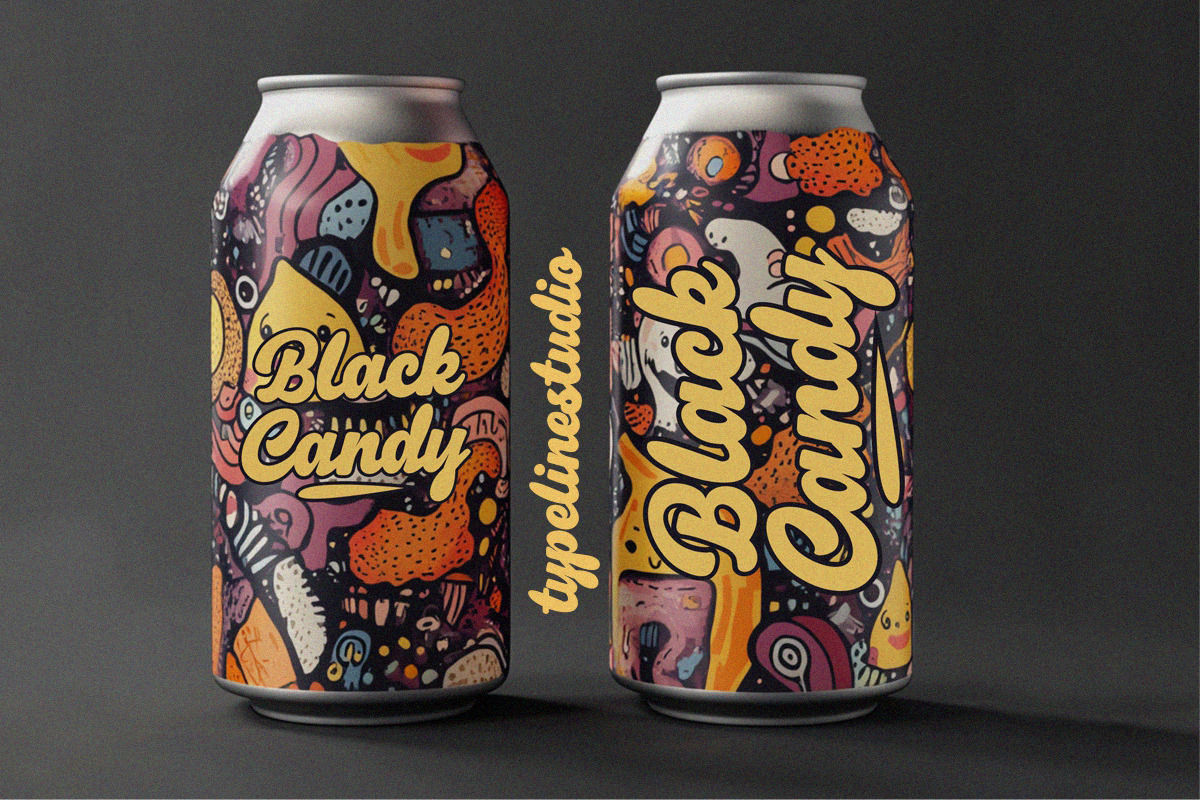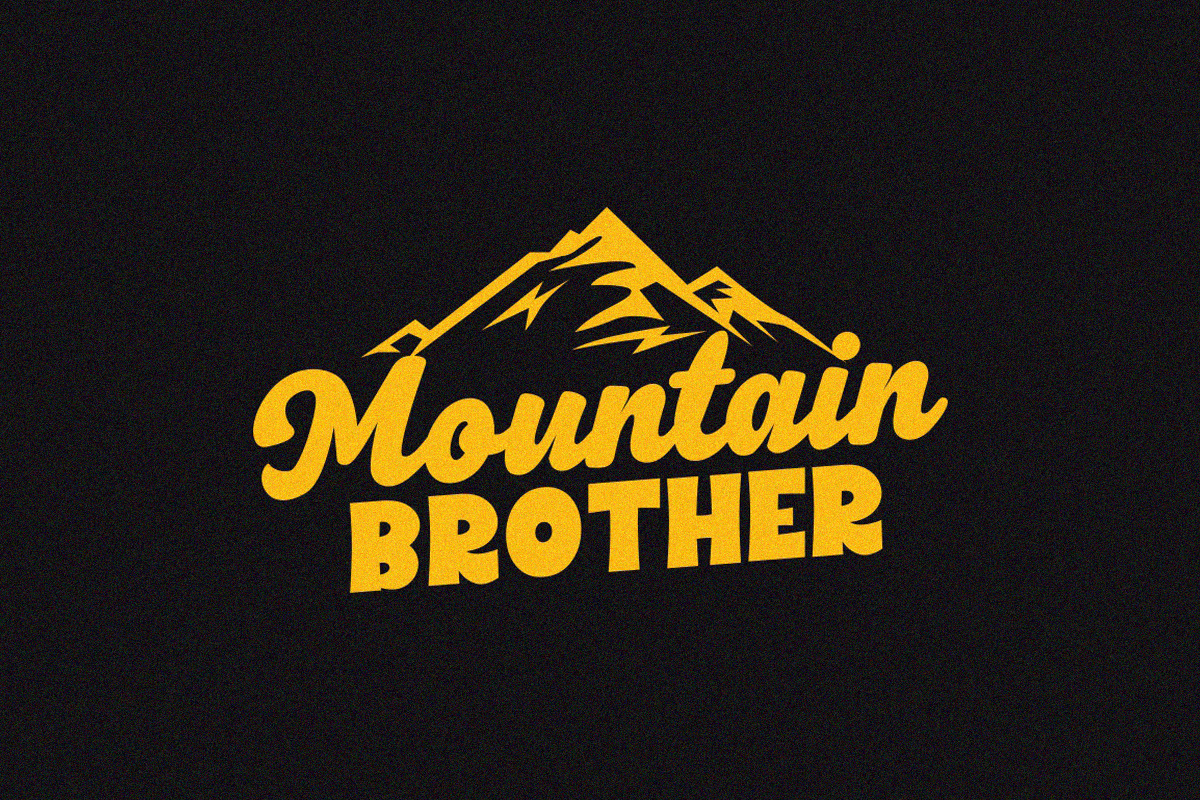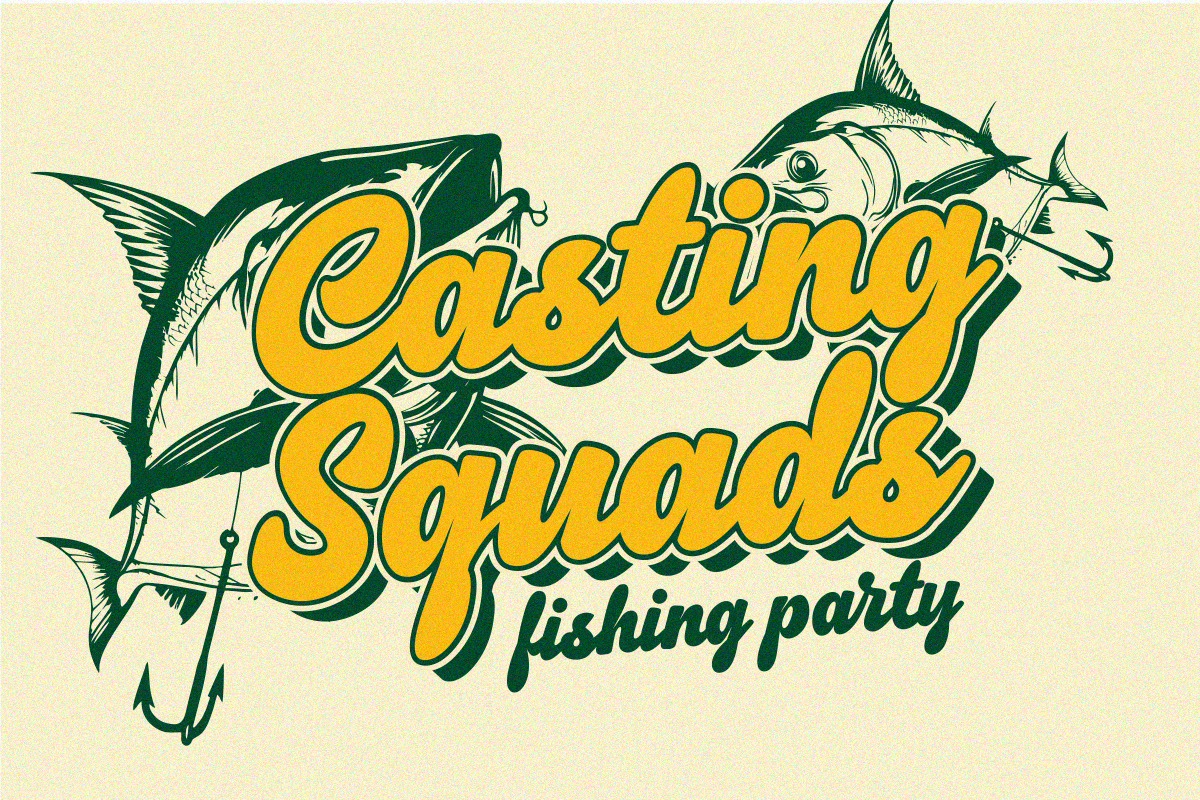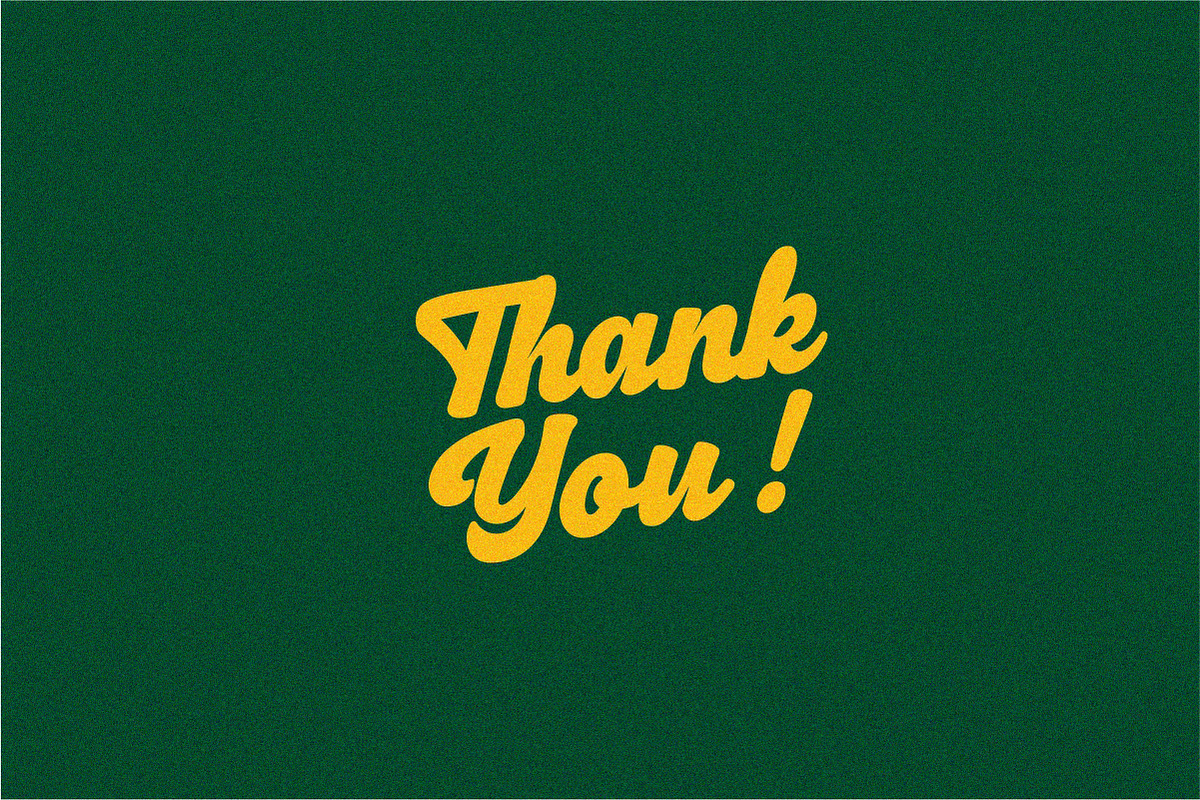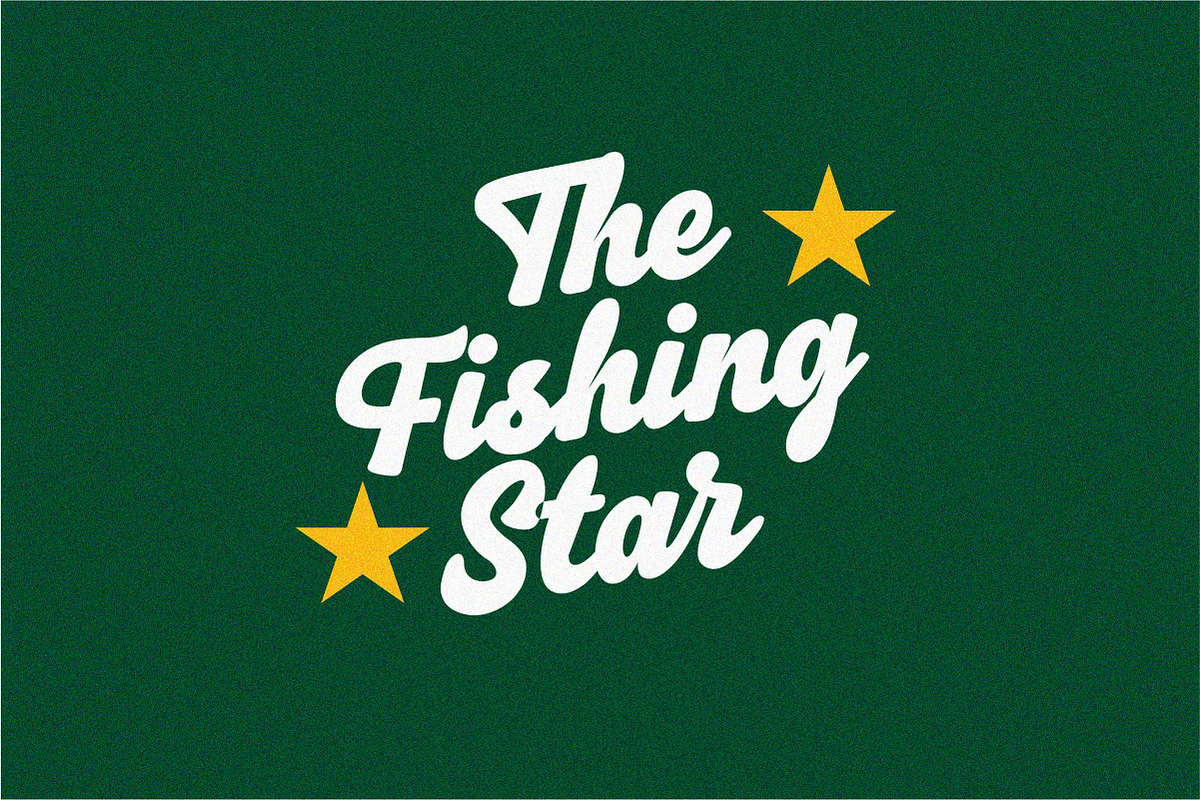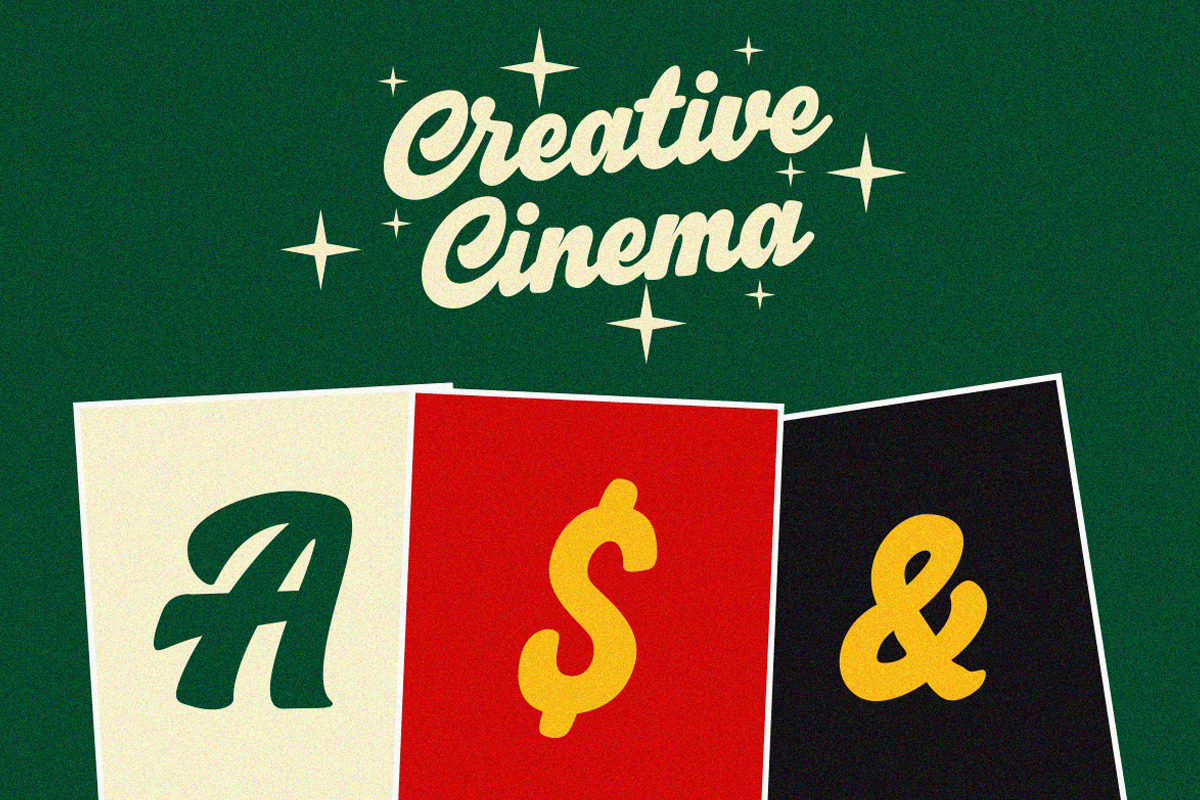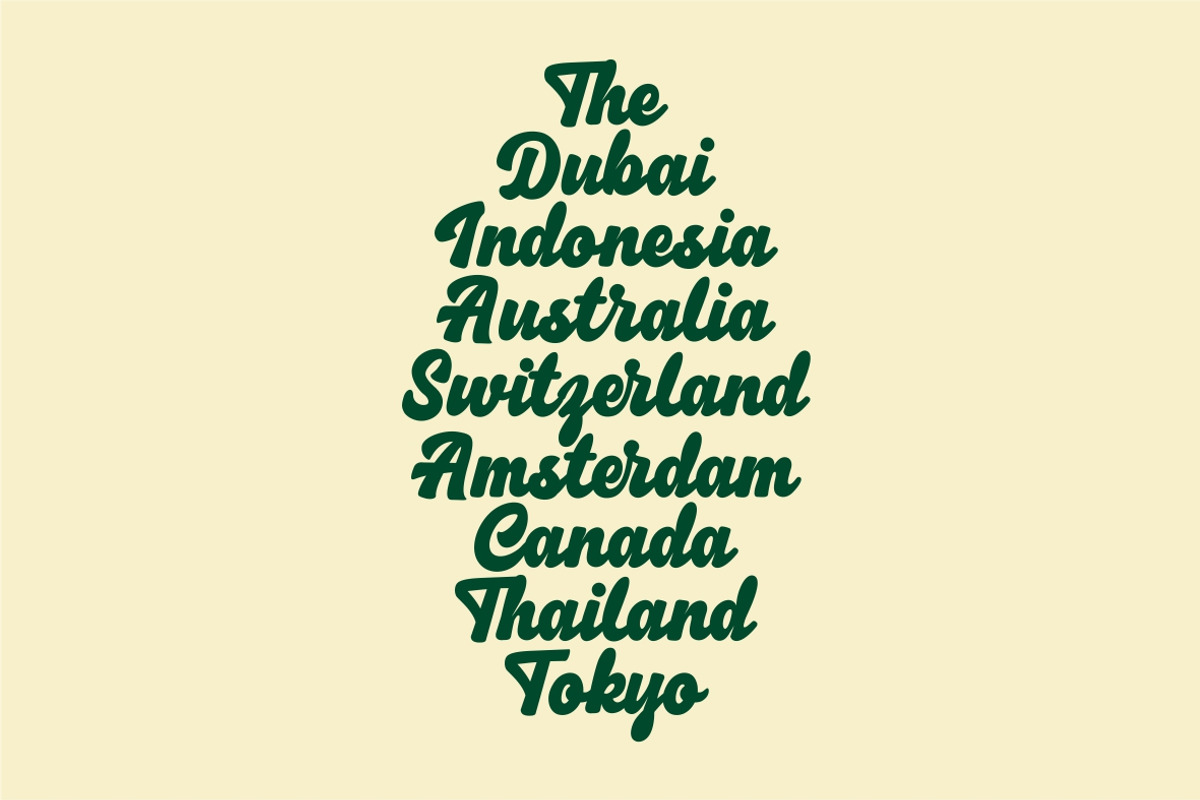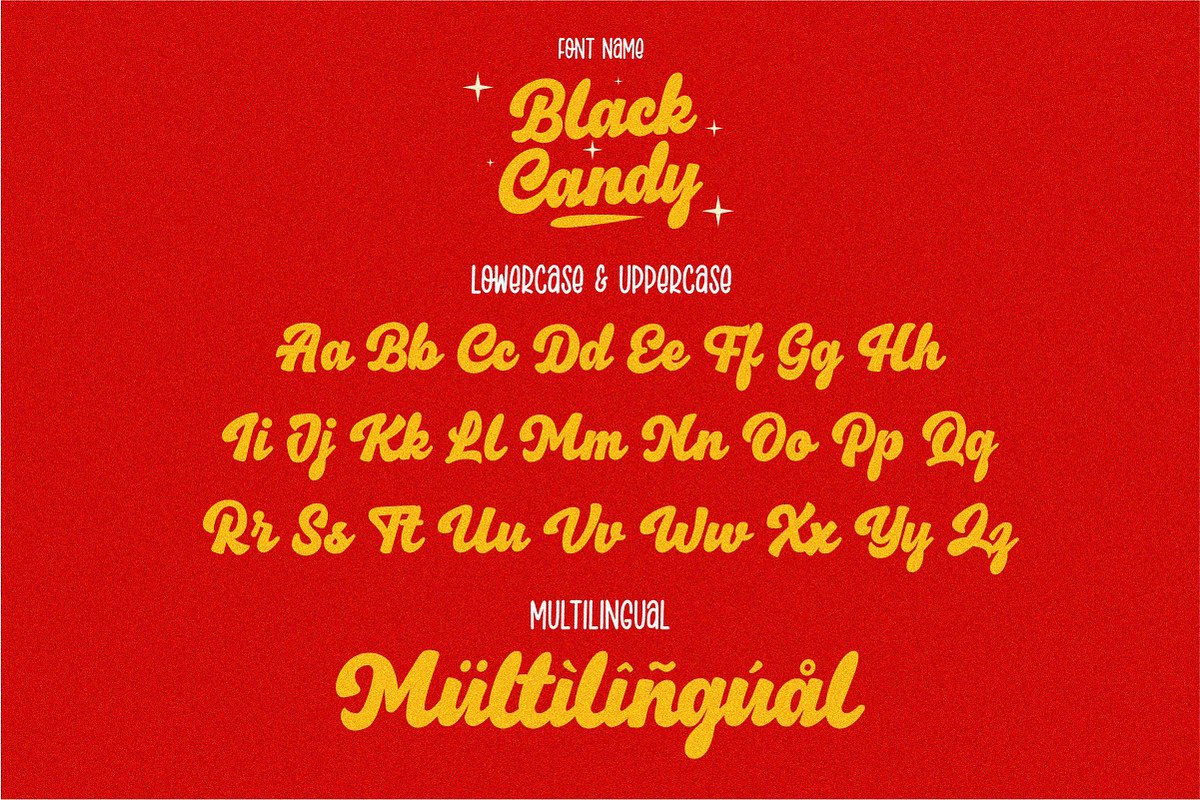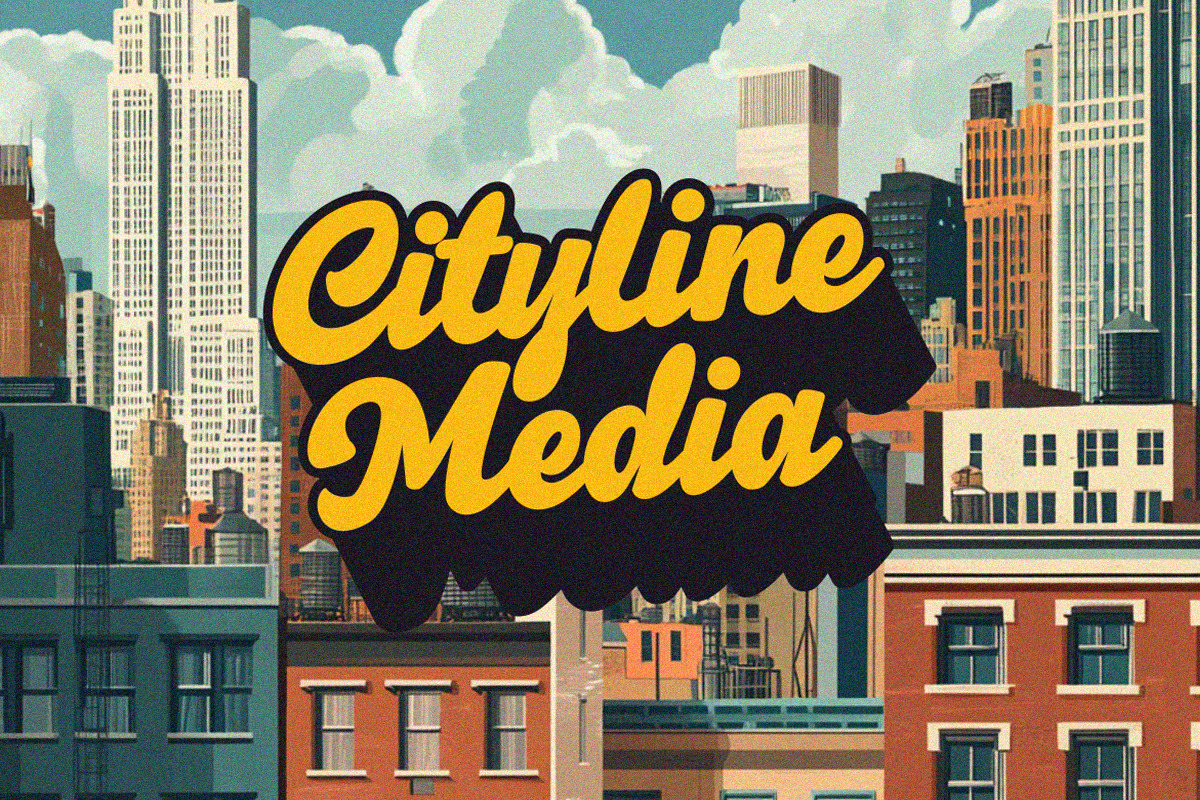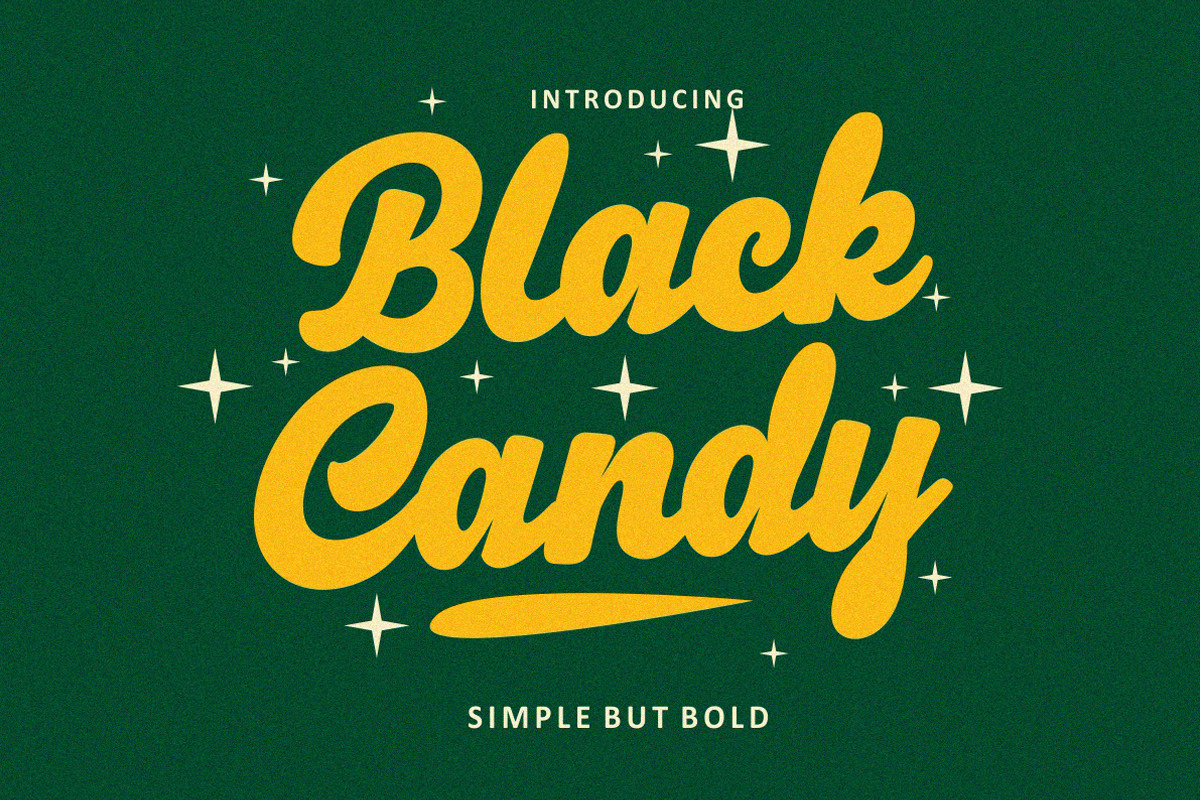
Black Candy – Bold Script Typeface
Black Candy Font – Bold Script Typeface for Impactful Branding & Logos
Black Candy Font is a bold script typeface meticulously designed to make a statement in logos, branding, headers, and titles. With its precise kerning and carefully crafted letterforms, this font ensures your designs stand out and leave a lasting impression.
Ideal for brand identities, logo taglines, and any project where visual impact is key, Black Candy Font brings a unique blend of elegance and boldness to your creative materials. While it’s not intended for body text, it excels in high-impact design applications where every detail matters.
Elevate your creative projects, from business branding to marketing materials, with Black Candy Font. Make your designs unforgettable today!
- Bold & Impactful – Perfect for logos and branding projects.
- Tailored Kerning & Spacing – Crafted for visual clarity and style.
- Ideal for Titles & Taglines – Enhances high-visibility designs.
- Not for Body Text – Best suited for headlines, logotypes, and branding applications.